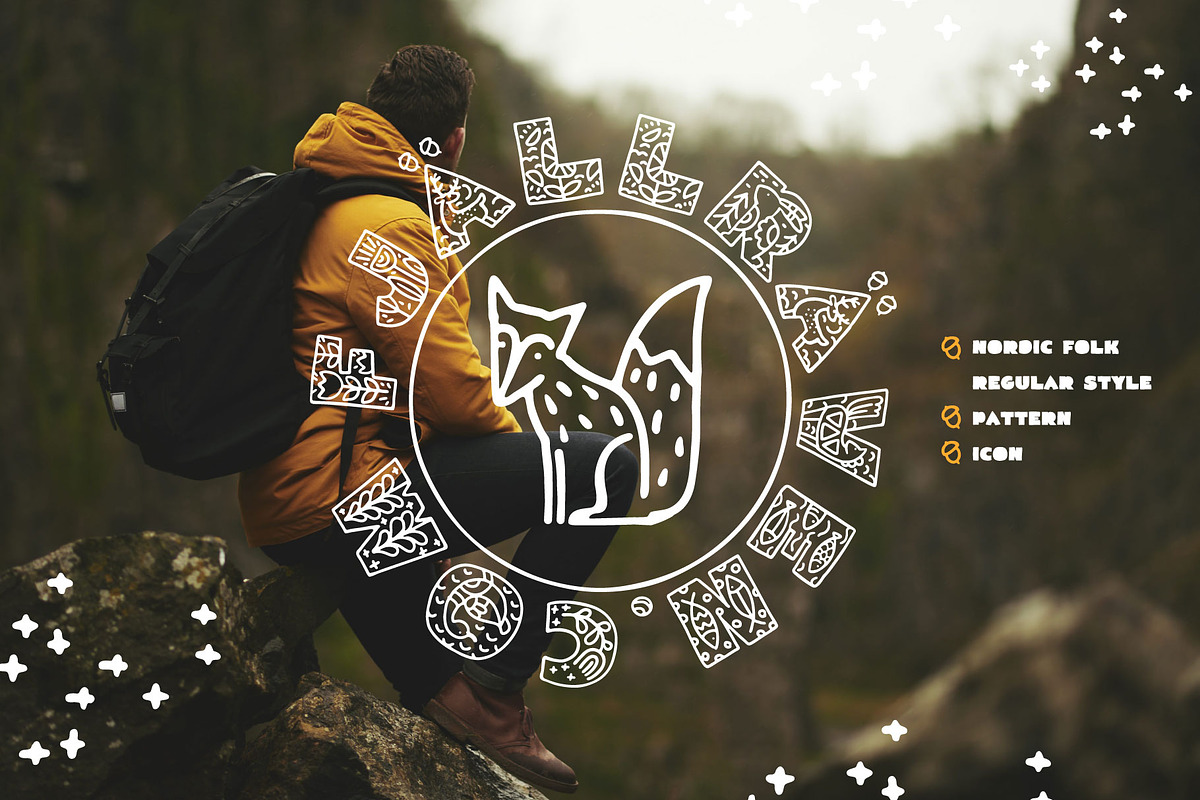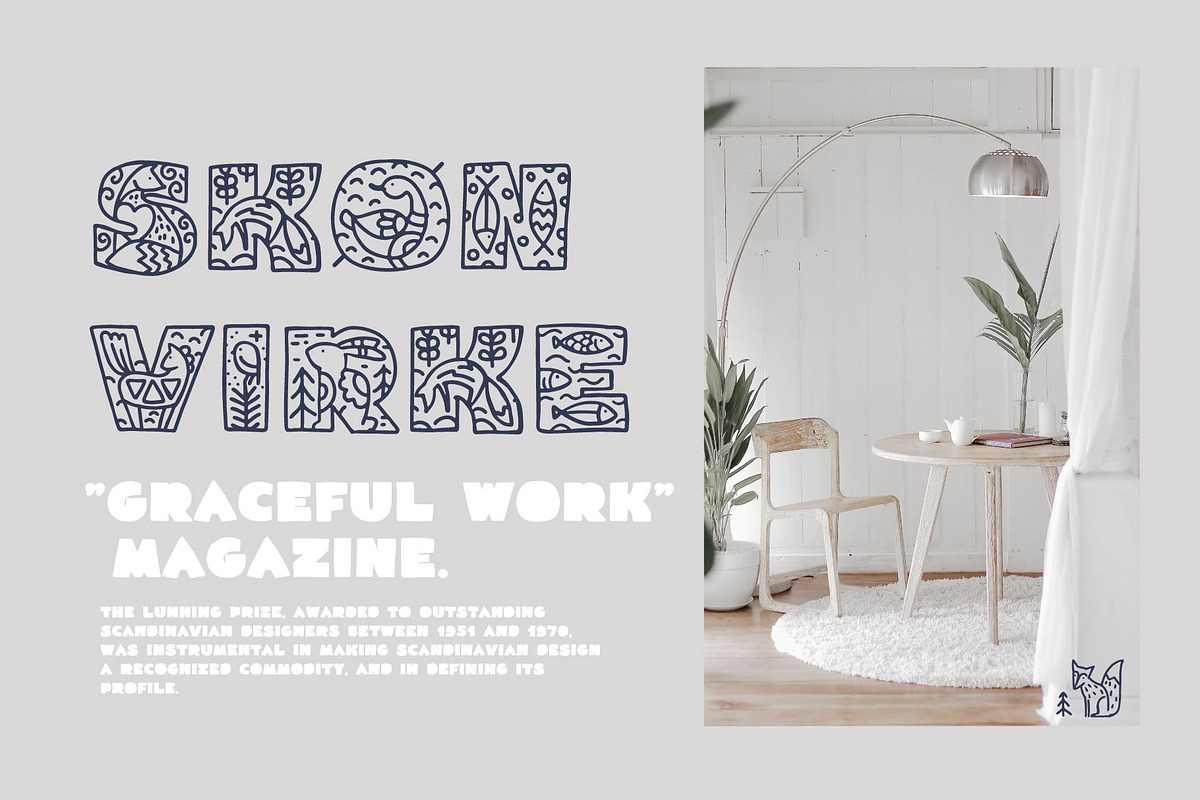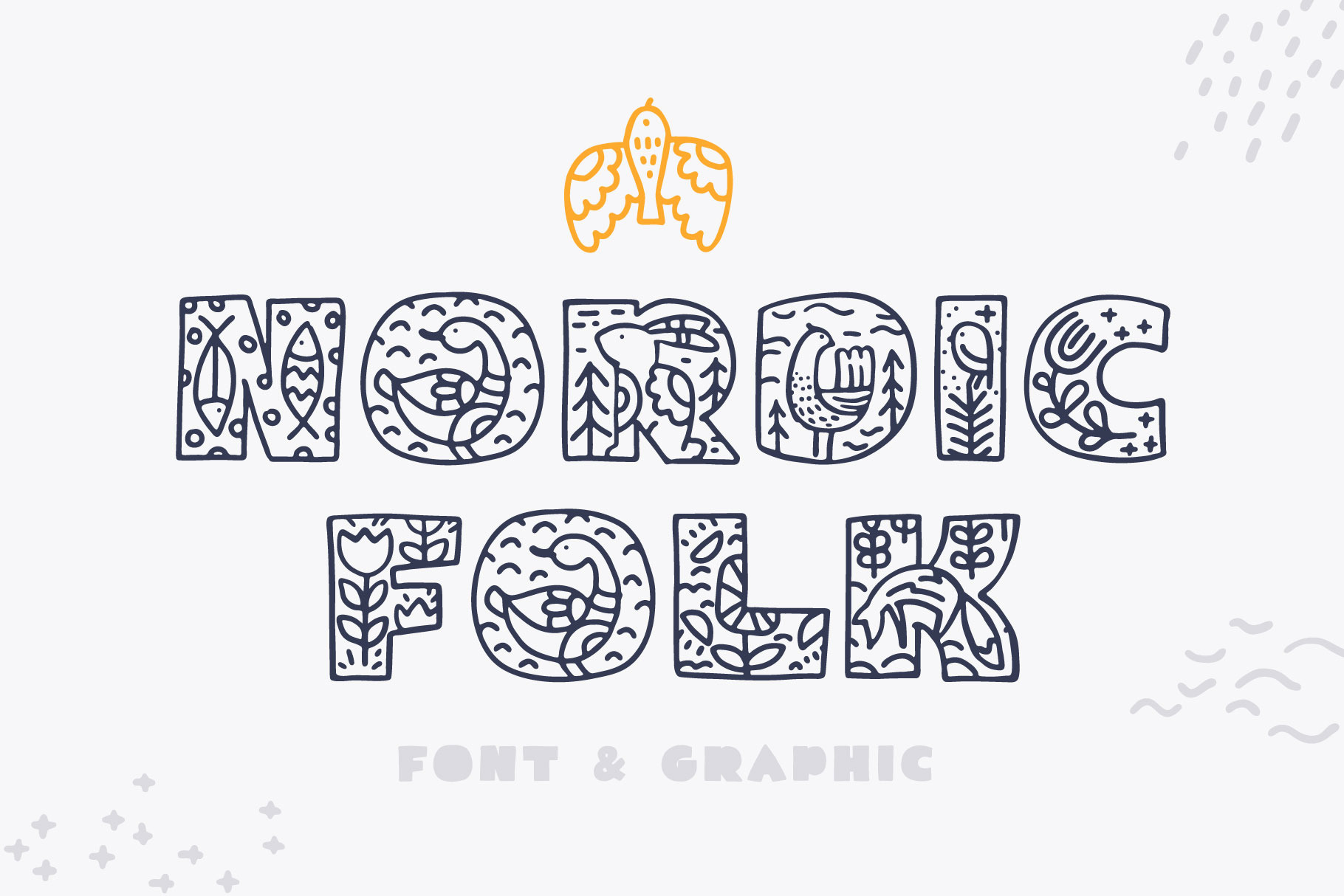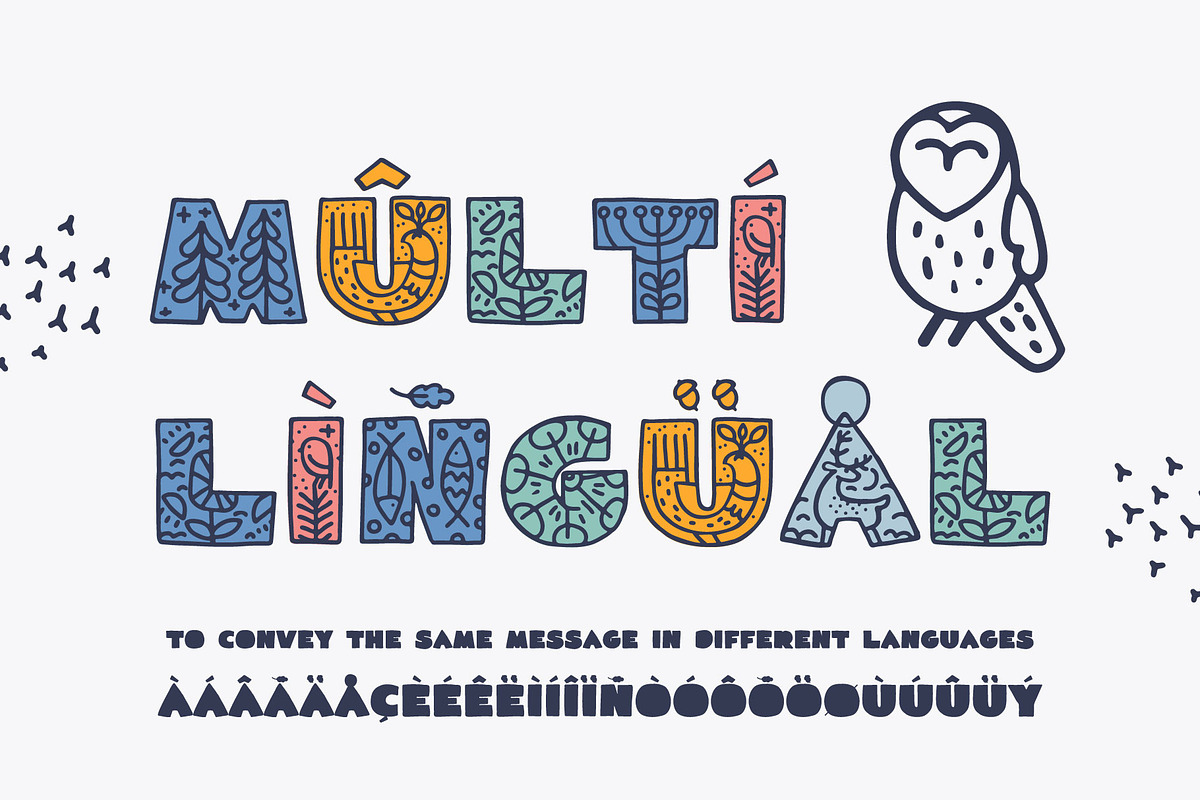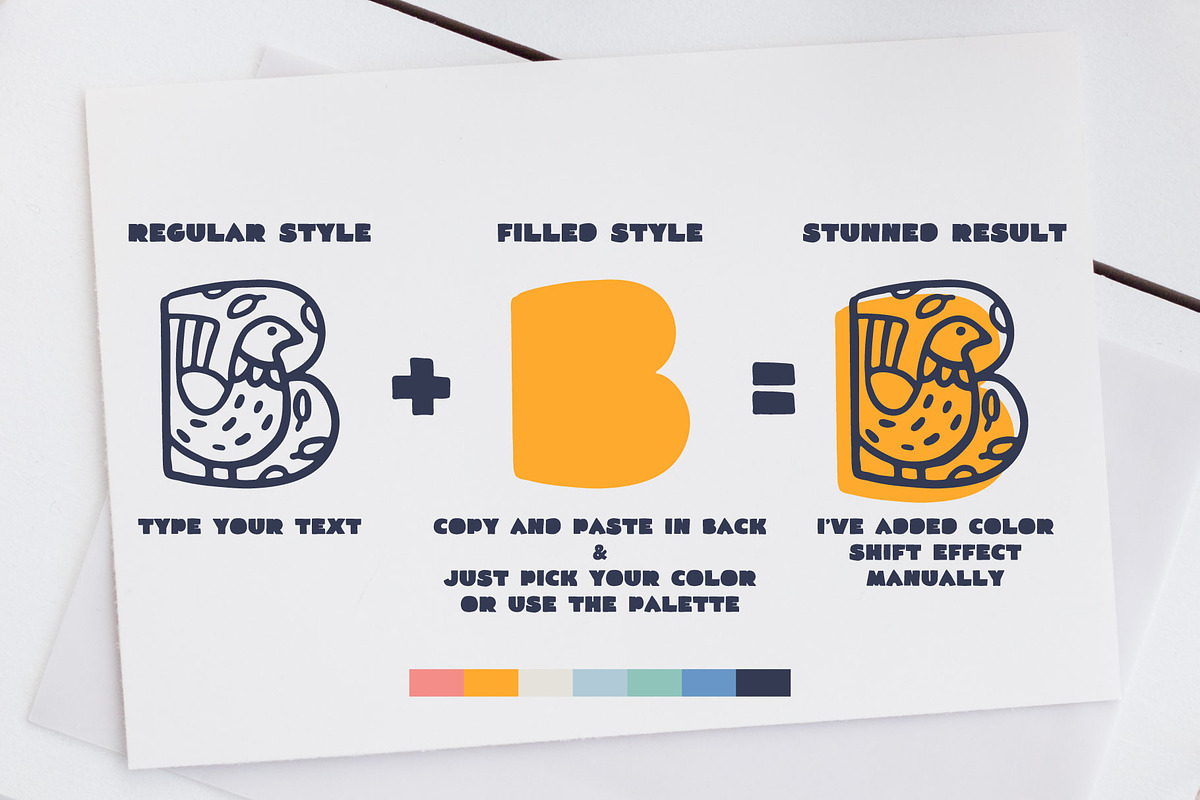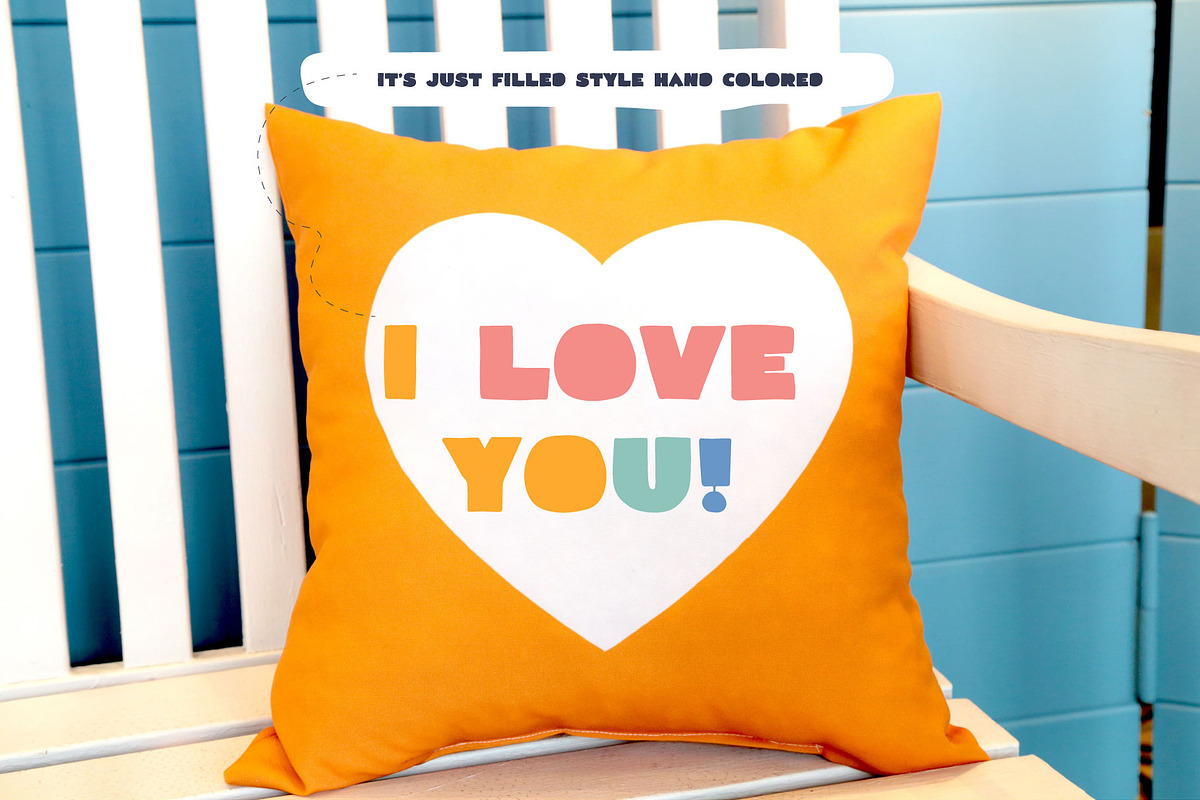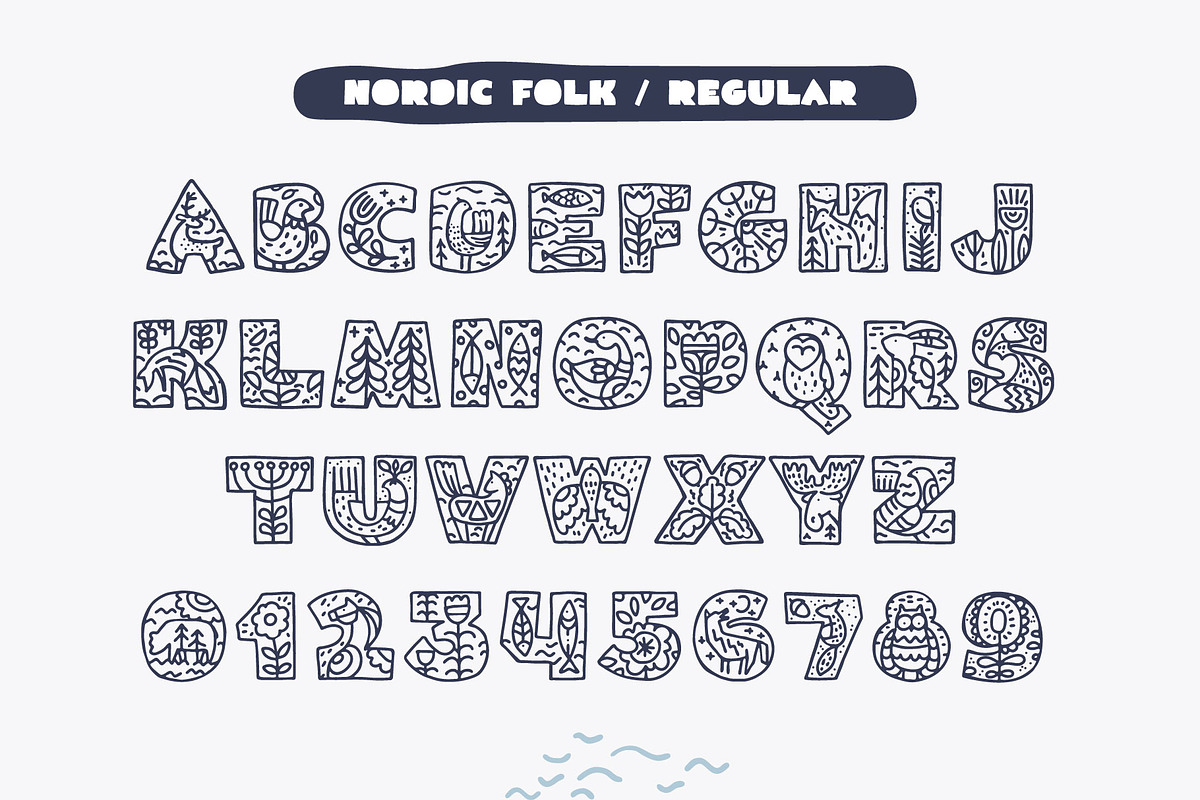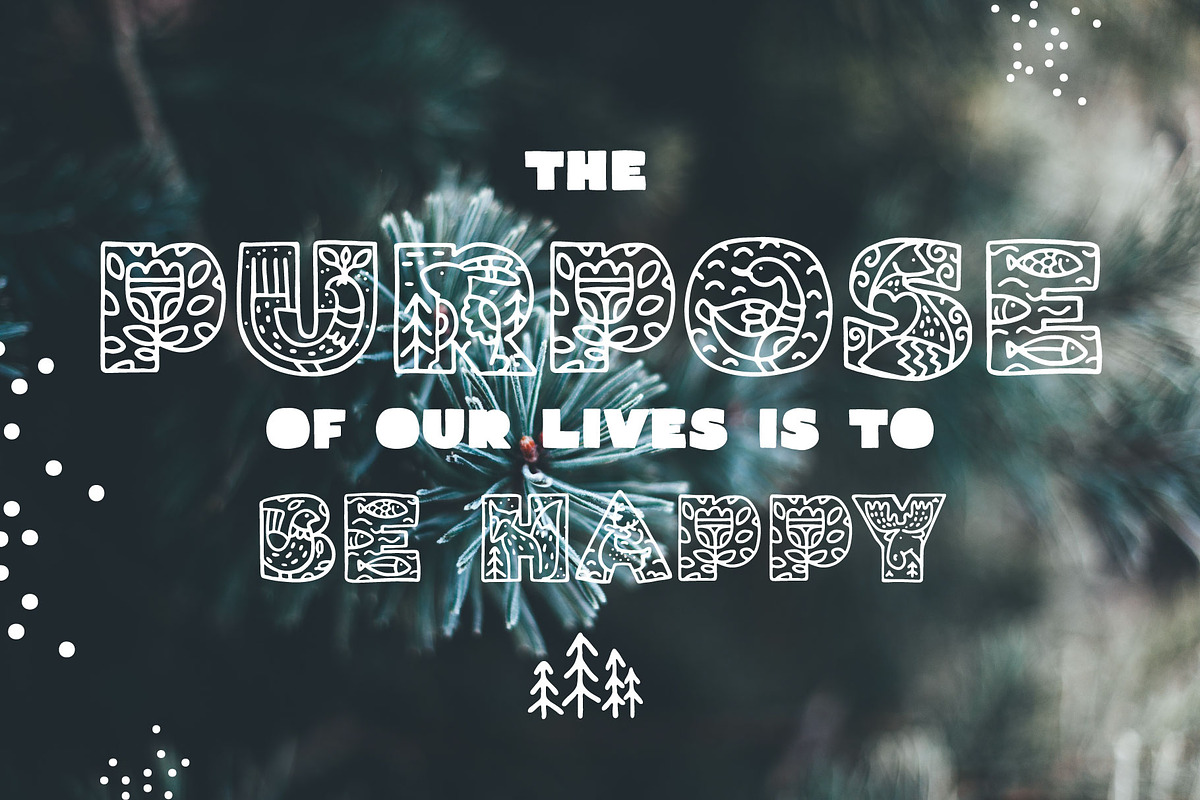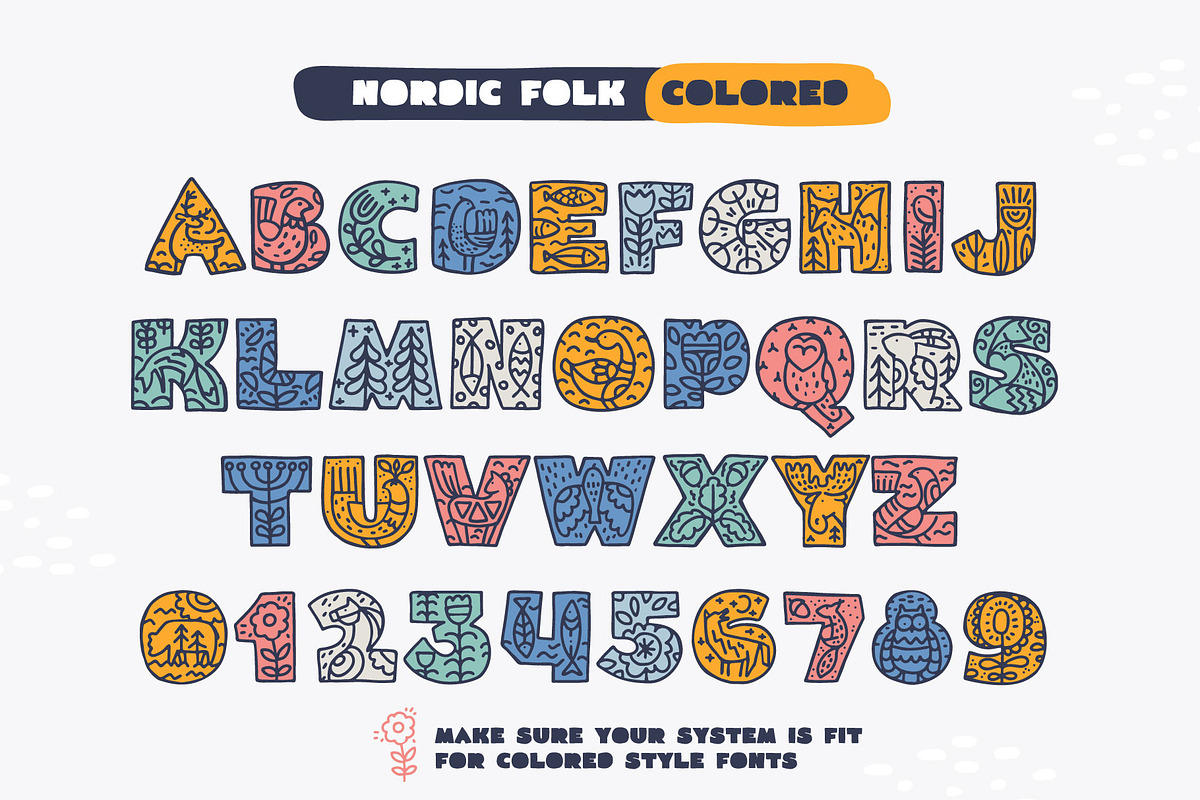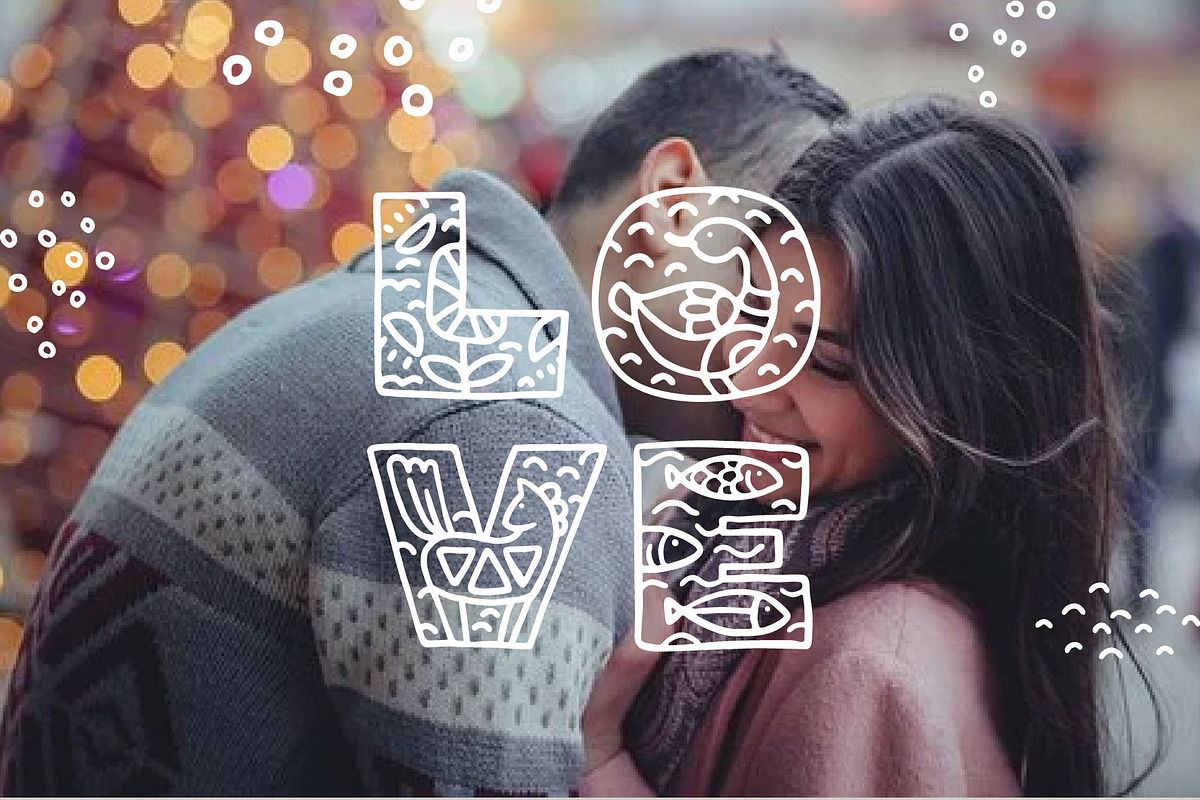
NordicFolk fonts & graphic set
I'm happy to introduce to you my new Scandinavian font. Hurray! Each letter is uniquely designed and has nordic folk art in the background.
- Colored style font, please find below how to use it!
- Filled and Regular styles
- Icons and patterns font
- Uppercase (lowercase glyphs are same)
- Numbers and symbols